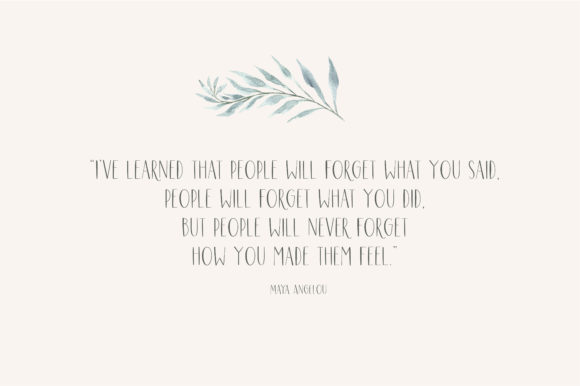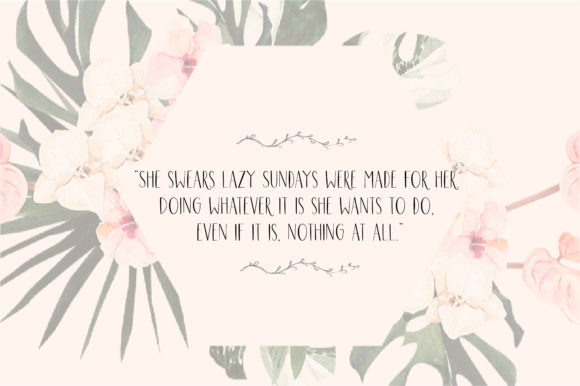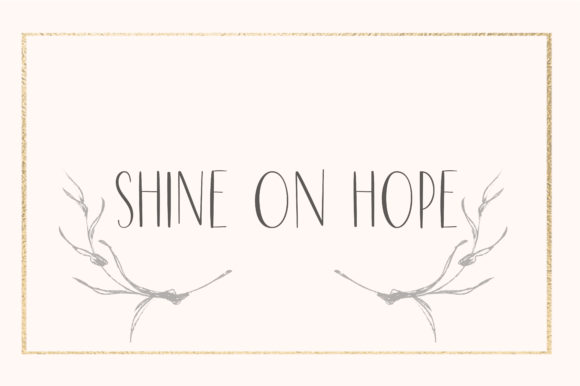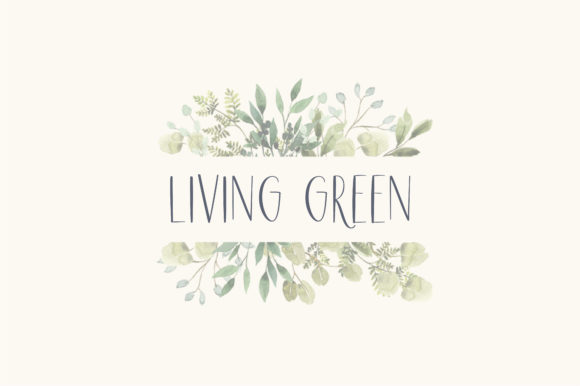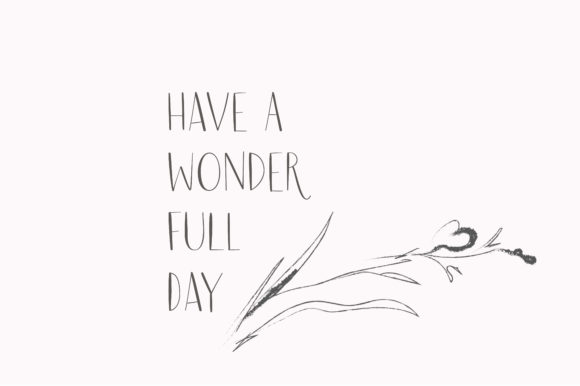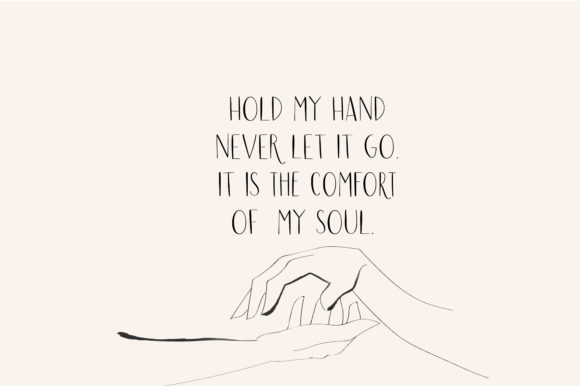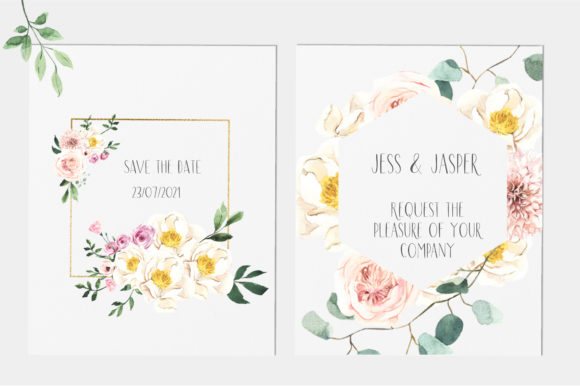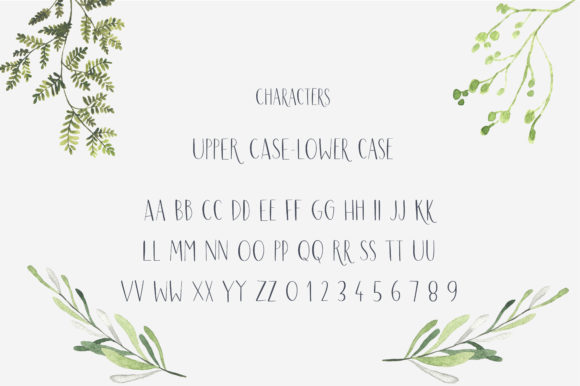
Sunday Fayre Font
About Sunday Fayre Font
“Sunday Fayre” sounds like a delightful and charming handwritten font, carefully crafted to become a beloved choice for any design project. With its delicate and sweet style, this font has the power to elevate your creative ideas to new heights. Here are some ways to utilize the enchanting “Sunday Fayre” font and unleash its full potential:
1. Invitations and Greeting Cards: Design elegant and heartfelt invitations for various occasions, such as birthdays, baby showers, or tea parties, using the whimsical “Sunday Fayre” font.
2. Handwritten Quotes: Use the font to create visually appealing typographic art featuring inspirational or uplifting quotes, perfect for framing or sharing on social media.
3. Craft and DIY Projects: Apply the font to labels, tags, or handmade cards for a touch of charm in your crafty creations.
4. Logo and Branding: Incorporate “Sunday Fayre” in branding projects for businesses related to confectionery, cafes, or artisanal products, evoking a sense of sweetness and nostalgia.
5. Recipe Cards and Cookbooks: Use the font to create beautiful recipe cards or design cookbook titles and headings for a delightful culinary experience.
6. Stationery and Letterhead: Customize personal stationery or professional letterhead with the “Sunday Fayre” font for a warm and friendly touch.
7. Children’s Books and Illustrations: Utilize the font in children’s book illustrations or design book covers to evoke a sense of wonder and playfulness.
8. Wedding and Event Signage: Add “Sunday Fayre” to event signage, welcome signs, or seating charts for a touch of elegance and whimsy.
9. Social Media Graphics: Create eye-catching social media graphics, featuring the font in posts, stories, or promotional materials.
10. DIY Home Decor: Use “Sunday Fayre” font to create vinyl decals or stencils for personalized home decor items, such as mugs, pillows, or wall art.
11. Labels and Packaging: Apply the font to product labels or packaging for artisanal products, adding a handcrafted and heartfelt touch.
12. Feminine Apparel and Accessories: Use the font in fashion design for feminine apparel or accessories, infusing a sense of grace and elegance.
13. Journaling and Planners: Incorporate the font in journaling or planner layouts to make daily planning and reflection a delightful experience.
14. Bridal Shower or Tea Party Invitations: Design charming invitations for bridal showers, afternoon tea gatherings, or any sophisticated event with the “Sunday Fayre” font.
15. Greeting Card Collections: Create a collection of greeting cards featuring various designs, all unified by the delightful “Sunday Fayre” font.
16. Wall Art and Posters: Design beautiful wall art and posters using the font to add a touch of sweetness to any room.
17. Online Shop Banners: Utilize the font in banners and headers for online shops, creating a warm and welcoming atmosphere for visitors.
18. Handwritten Wedding Vows: Use the font to handwrite or print wedding vows, enhancing the sentimental and intimate atmosphere of the ceremony.
19. Calendars and Planners: Incorporate “Sunday Fayre” in calendar designs to add a playful and elegant touch to the months ahead.
20. Gift Tags and Labels: Apply the font to gift tags or labels, adding a personal touch to presents for your loved ones.
In summary, “Sunday Fayre” is a delicate and sweet handwritten font that exudes charm and warmth. Its masterful design allows it to shine in a wide range of creative projects, from invitations and branding to home decor and social media graphics. Whether you’re creating for personal use or professional endeavors, this font has the potential to become a true favorite, elevating each of your ideas to the highest level of enchantment.